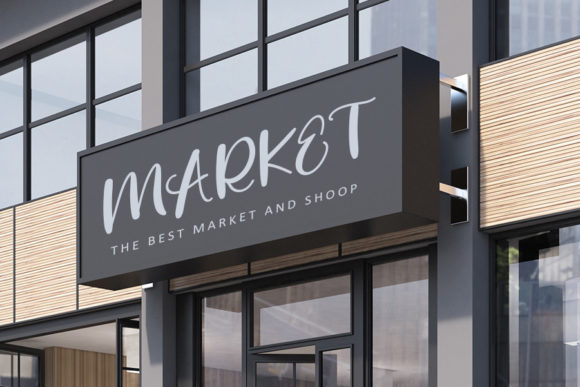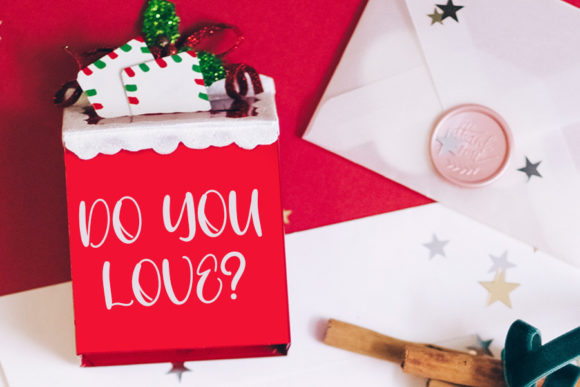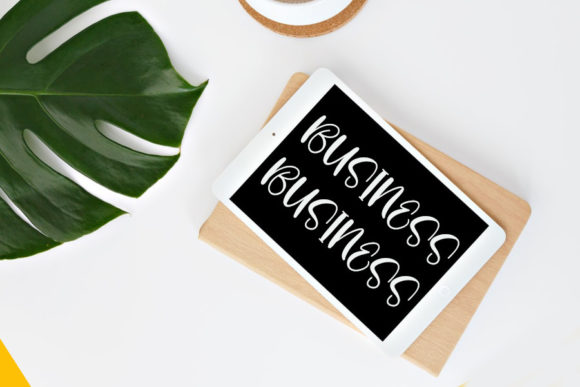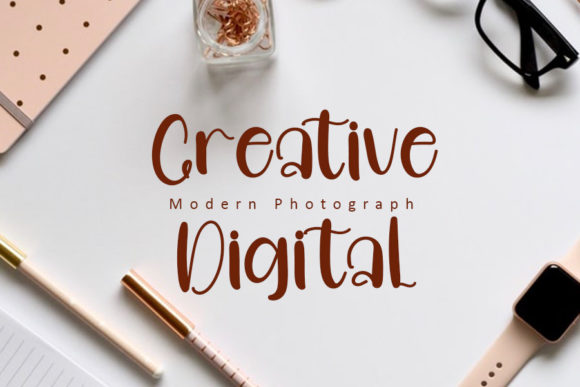
Introducing Butterlove Font: The Perfect Handwritten Touch for Your Designs
Are you a designer or crafter looking for a font that adds a touch of elegance and sophistication to your work? Look no further than Butterlove Font. This smart, round lettered, and chic script font is perfect for a variety of design projects, from wedding invitations and thank you cards to quotes, greeting cards, logos, and business cards.
What Makes Butterlove Font Special?
Butterlove Font is a unique and stylish script font that is sure to elevate your designs. Its round lettered and chic style gives it a distinctive look that is both modern and classic. The font is highly versatile and can be used for a wide range of design projects, making it a great addition to any designer’s toolkit.
Wedding invitations, thank you cards, and other event designs require a special touch of elegance and sophistication. Butterlove Font is perfect for these types of projects, adding a romantic and whimsical feel to your designs. The font’s round letters and flowing script style make it ideal for creating beautiful and eye-catching wedding stationery.
Great for Quotes and Greeting Cards
Butterlove Font is also great for designing quotes and greeting cards. The font’s stylish and modern look makes it perfect for creating inspirational quotes, fun greeting cards, and other types of stationery. Whether you’re designing for a client or creating something for personal use, Butterlove Font is sure to add a touch of class and sophistication to your work.
Ideal for Logos and Business Cards
Butterlove Font is not just limited to stationery and event designs. It’s also a great choice for creating logos and business cards. The font’s unique and stylish look makes it perfect for businesses that want to stand out from the crowd and create a lasting impression.
Why Choose Butterlove Font?
So why choose Butterlove Font over other script fonts? Here are just a few reasons:
- Unique and stylish design: Butterlove Font has a distinctive look that is both modern and classic.
- Highly versatile: The font can be used for a wide range of design projects, from wedding invitations to logos and business cards.
- Elegant and sophisticated: Butterlove Font adds a touch of elegance and sophistication to any design.
- Easy to read: The font’s round letters and flowing script style make it easy to read and understand.
Tips for Getting the Most Out of Butterlove Font
Here are a few tips for getting the most out of Butterlove Font:
- Use it with contrasting colors: Butterlove Font looks great when paired with contrasting colors. Try using it with a bold color to create a striking design.
- Experiment with different sizes: The font looks great in a variety of sizes, from small and delicate to large and bold.
- Pair it with other fonts: Butterlove Font pairs well with other fonts, such as sans serif fonts and serif fonts. Try pairing it with a sans serif font for a modern look or a serif font for a more classic look.
Butterlove Font is a stylish and versatile script font that is perfect for a wide range of design projects. Its unique and elegant design makes it ideal for wedding invitations, thank you cards, quotes, greeting cards, logos, and business cards. Whether you’re a designer or crafter, Butterlove Font is sure to add a touch of class and sophistication to your work.